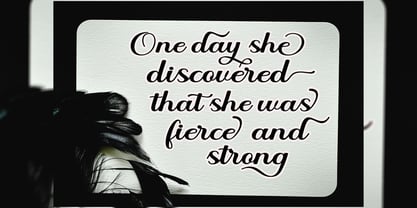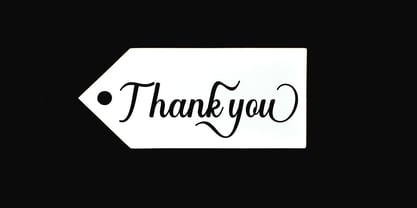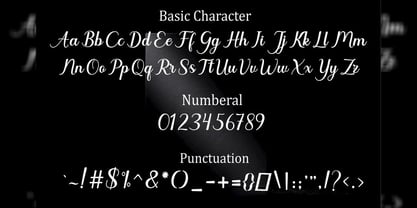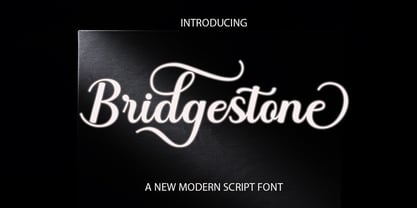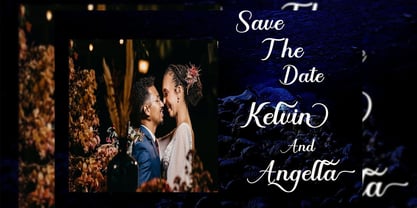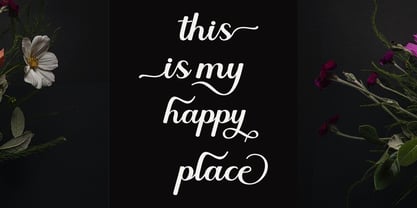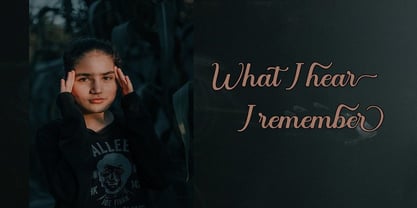
Bridgestone Modern
by Naiza Studio
The Bridgestone Modern Font Family was designed by Ata Illah and published by Naiza Studio. Bridgestone Modern contains 1 styles. More about this family
Bridgestone script is a modern calligraphy design including Regular. This font is casual and beautiful with swashes. Can be used for various purposes such as logos, product packaging, wedding invitations, branding, headlines, signage, labels, signatures, book covers, posters, quotes, and much more.
Designers: Ata Illah
Foundry: Naiza Studio